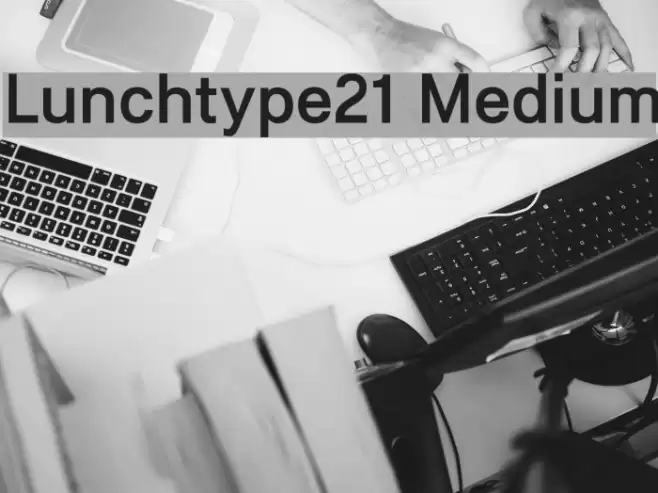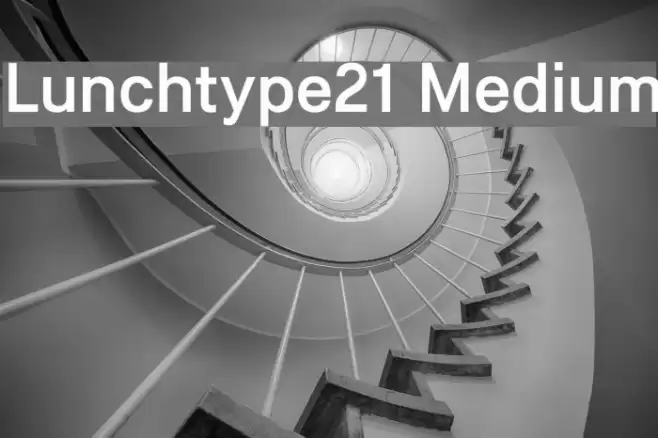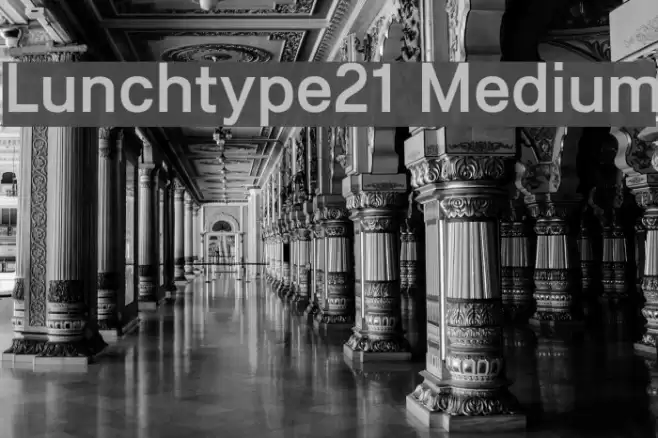
Lunchtype21 Medium Font
Lunchtype21 Medium Description
This font features a clean and modern sans-serif design with a medium weight, offering a balanced appearance that is both professional and approachable. The characters are well-proportioned, with consistent stroke widths that provide a uniform look across all letters and numbers. The uppercase letters are bold and assertive, while the lowercase letters maintain a friendly and accessible feel. The numerals are clear and easy to read, making them suitable for a variety of applications. Special characters are neatly designed, ensuring they integrate seamlessly with the rest of the typeface. The overall style is versatile, making it suitable for both digital and print media.
A modern, medium-weight sans-serif font with clean lines and balanced proportions from Uncategorized fonts.